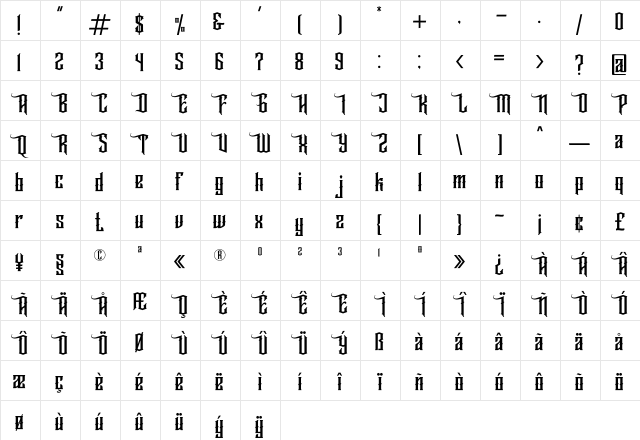
Wallrous Regular
Design Context for Wallrous Typeface
Wallrous is a composed and adaptable typeface that performs quietly and consistently across a wide range of design contexts.